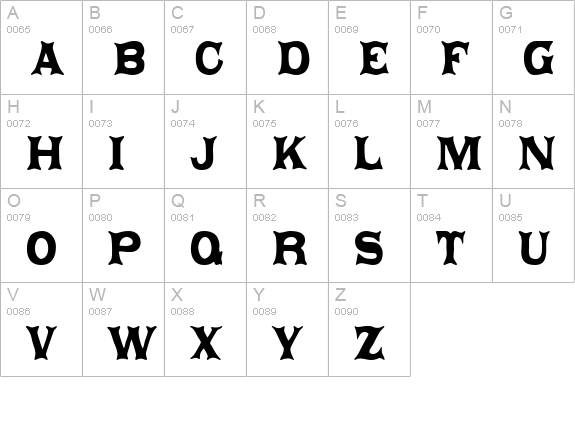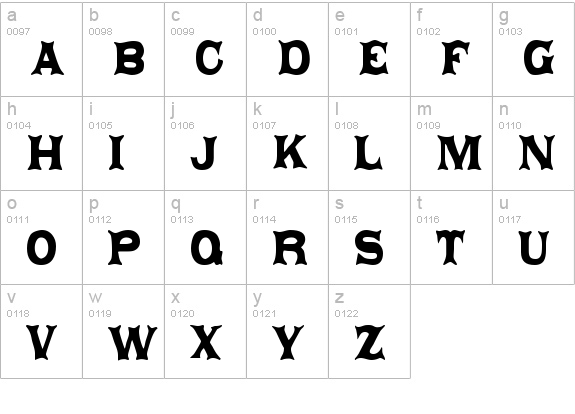
Daisy MF Font Details
Daisy MF is a charming and whimsical font that adds a touch of playfulness to any design project. With its elegant curves and stylish flourishes, this font is perfect for creating eye-catching headlines, invitations, and more. Daisy MF is a versatile typeface that can be used for a variety of purposes, from branding to social media graphics. The best part? Daisy MF is available for free download at FontsMarket.com. So whether you're a designer looking to add a unique flair to your work or a DIY enthusiast in need of a creative font for your projects, Daisy MF is the perfect choice. Download it today and let your creativity shine!